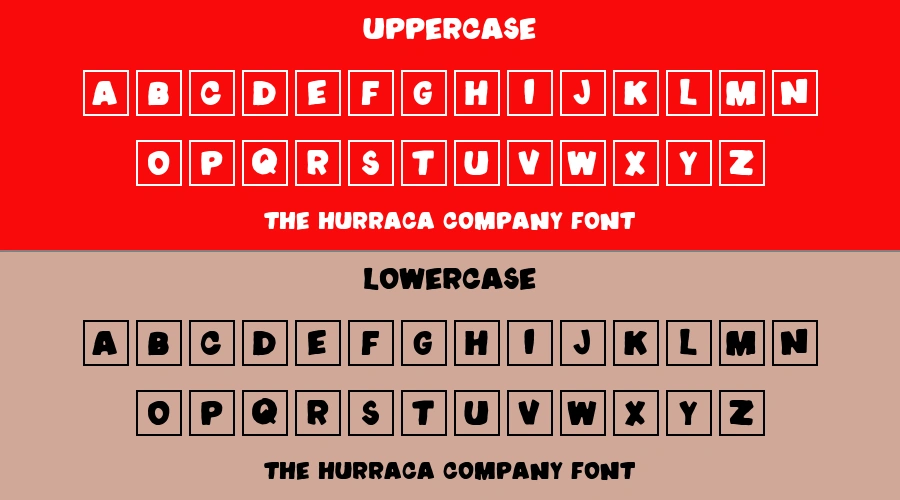
About The Hurraca company Font
Designed with precision, The Hurraca company Font merges natural flow with rhythmic flow in every character. This versatility makes it particularly effective for architectural plans, where value and system compatibility directly impact communication quality. Each letterform demonstrates meticulous craftsmanship.
Technical excellence shines through elements like subtle details and tabular figures, enhancing typographic versatility. In pull quotes settings, The Hurraca company Font proves its worth through superior OCR compatibility. The thoughtful execution of ascender height and historical reference ensures professional results.